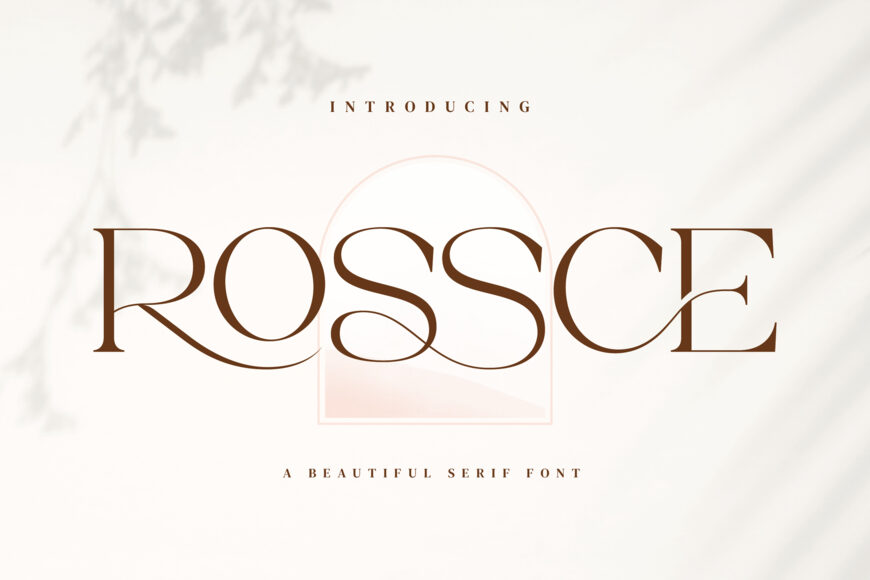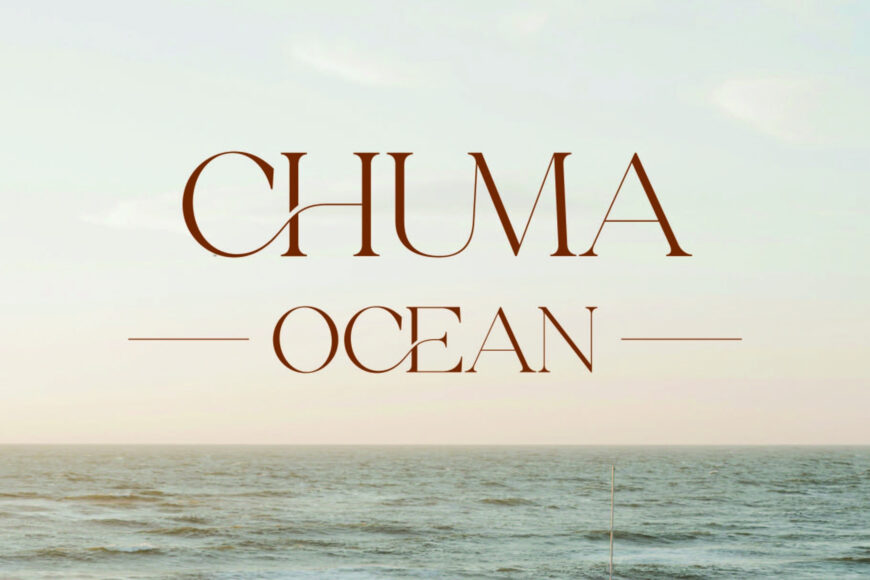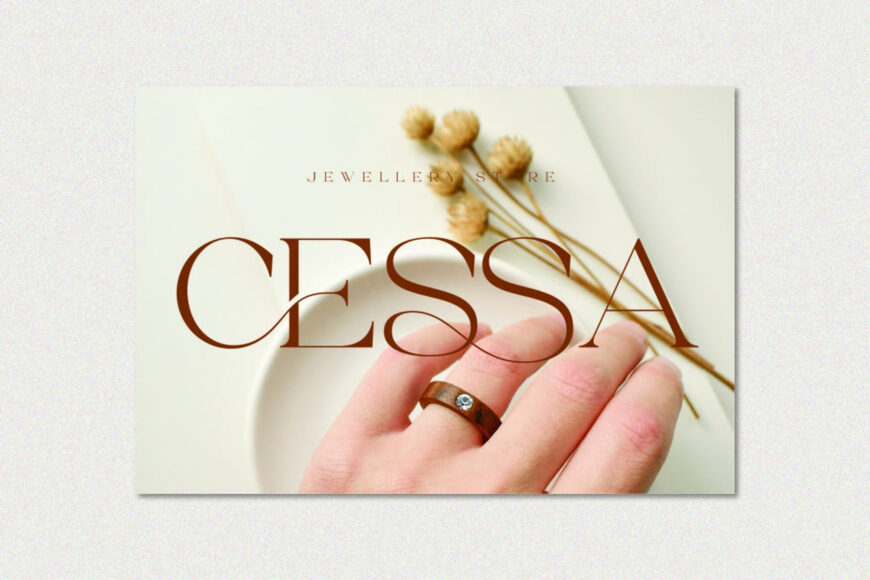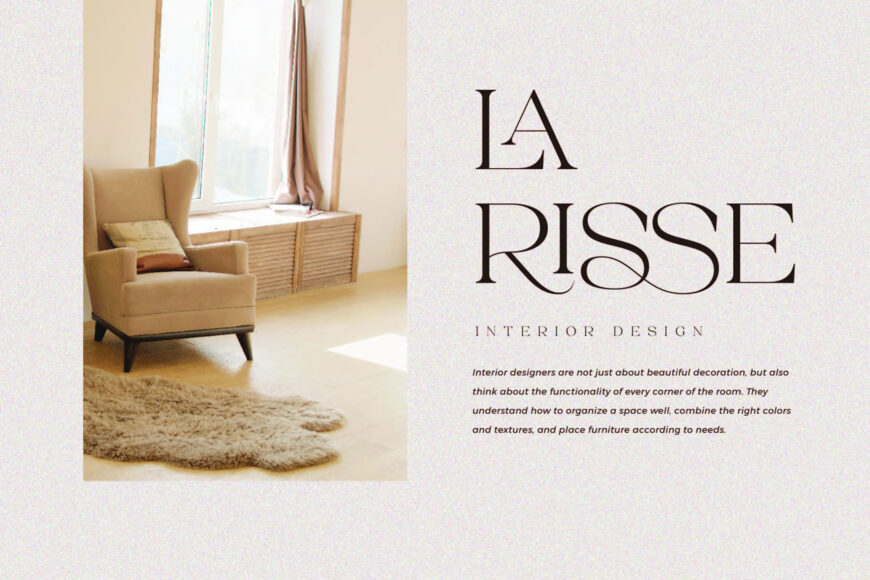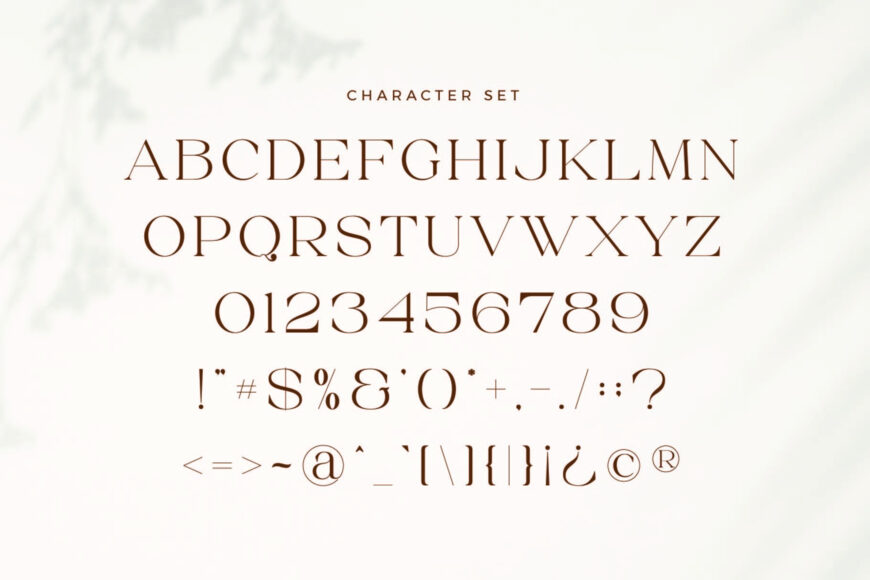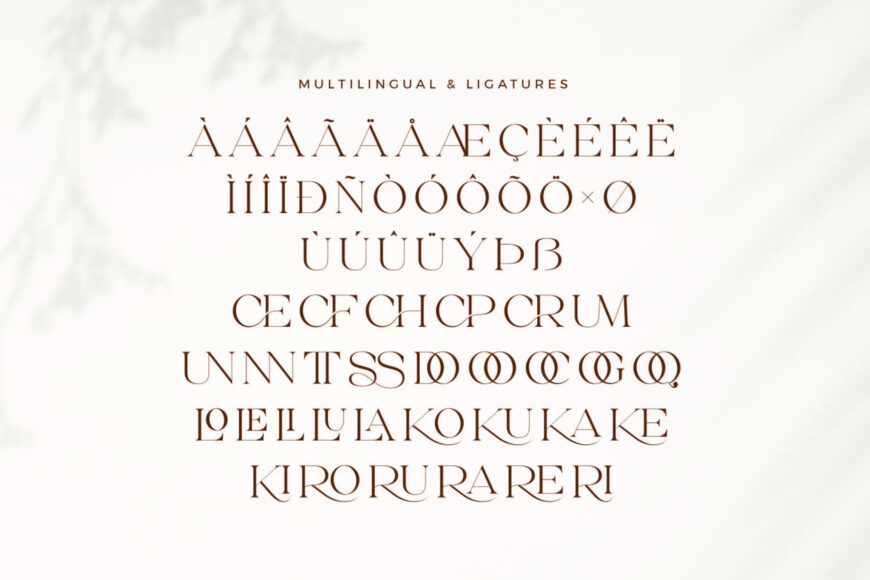
Rossce Font
Rossce is a stylish ligature typeface inspired by iconic minimalist logos. It’s perfect for templates, brochures, videos, advertisements, branding, logos, and many other creative design projects.